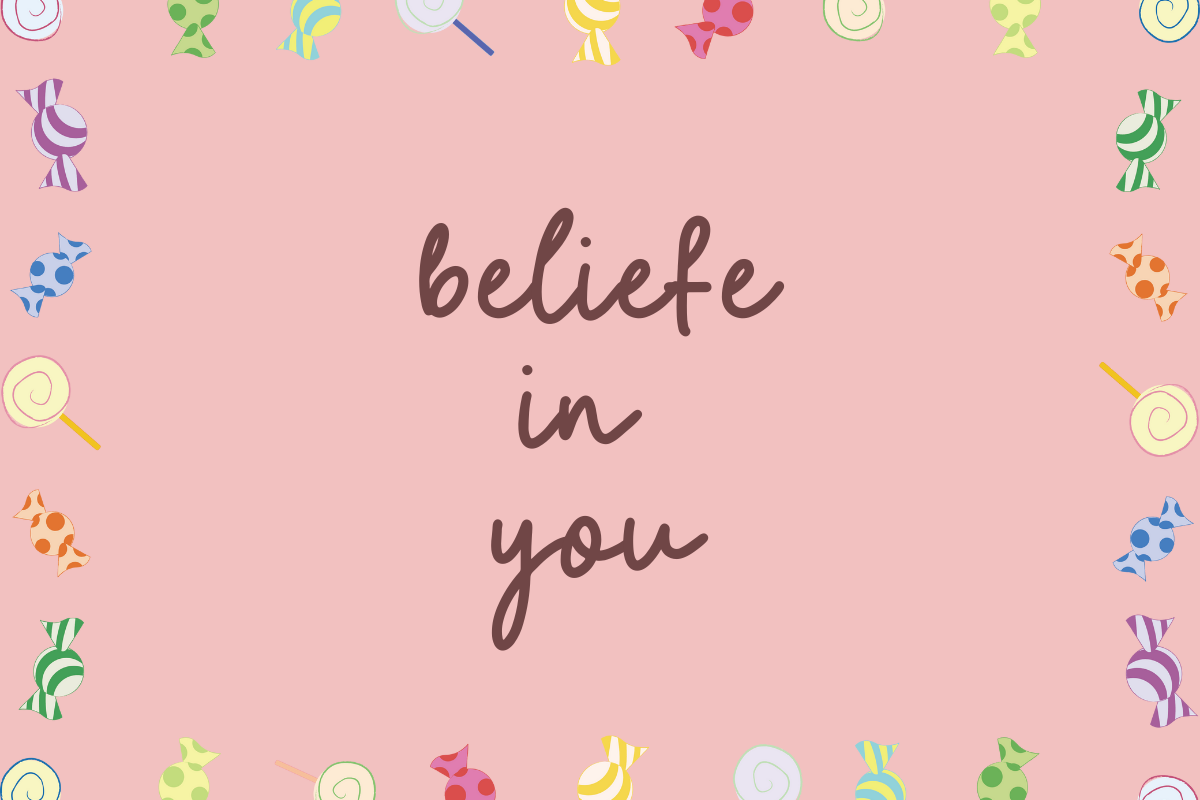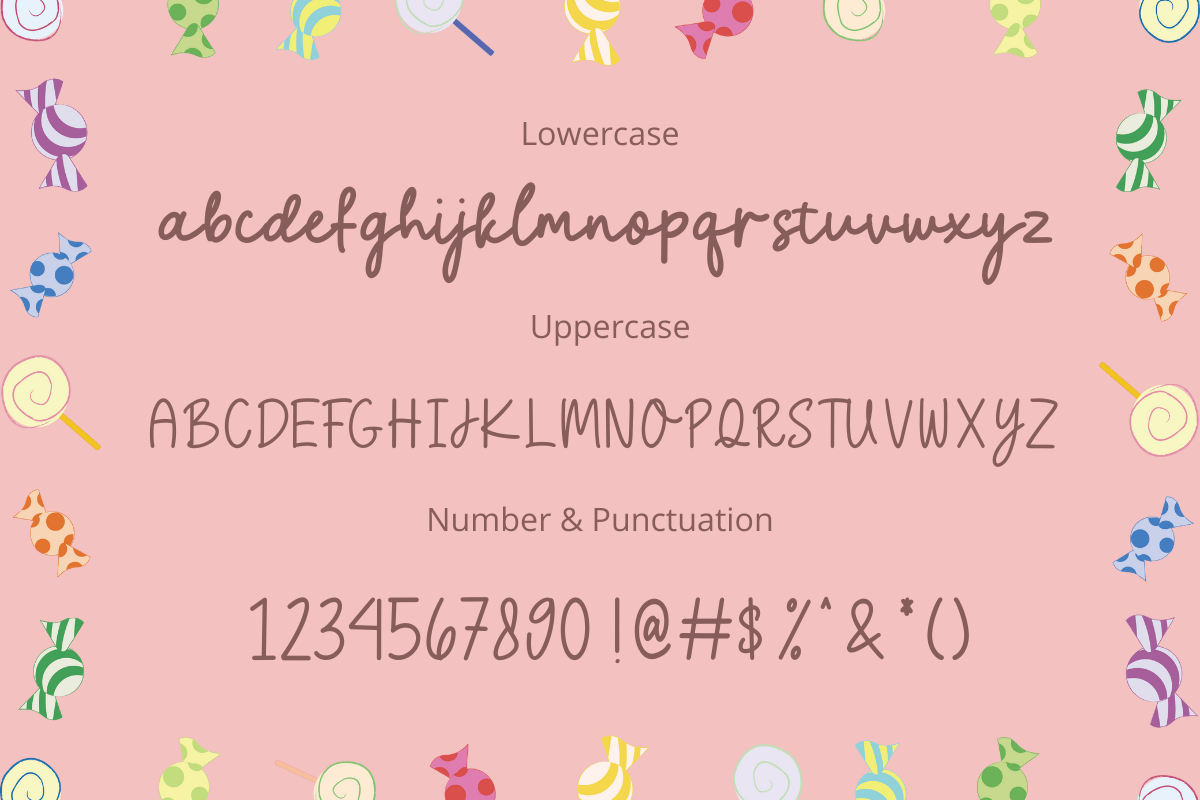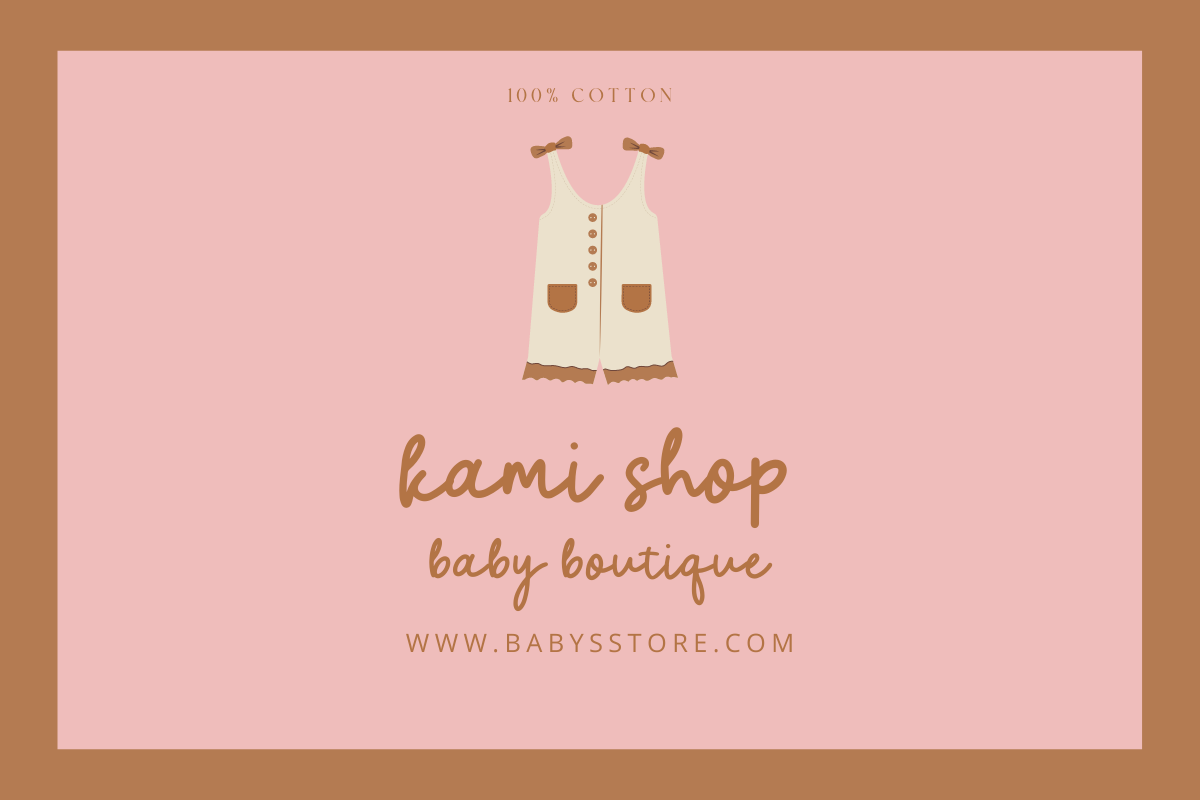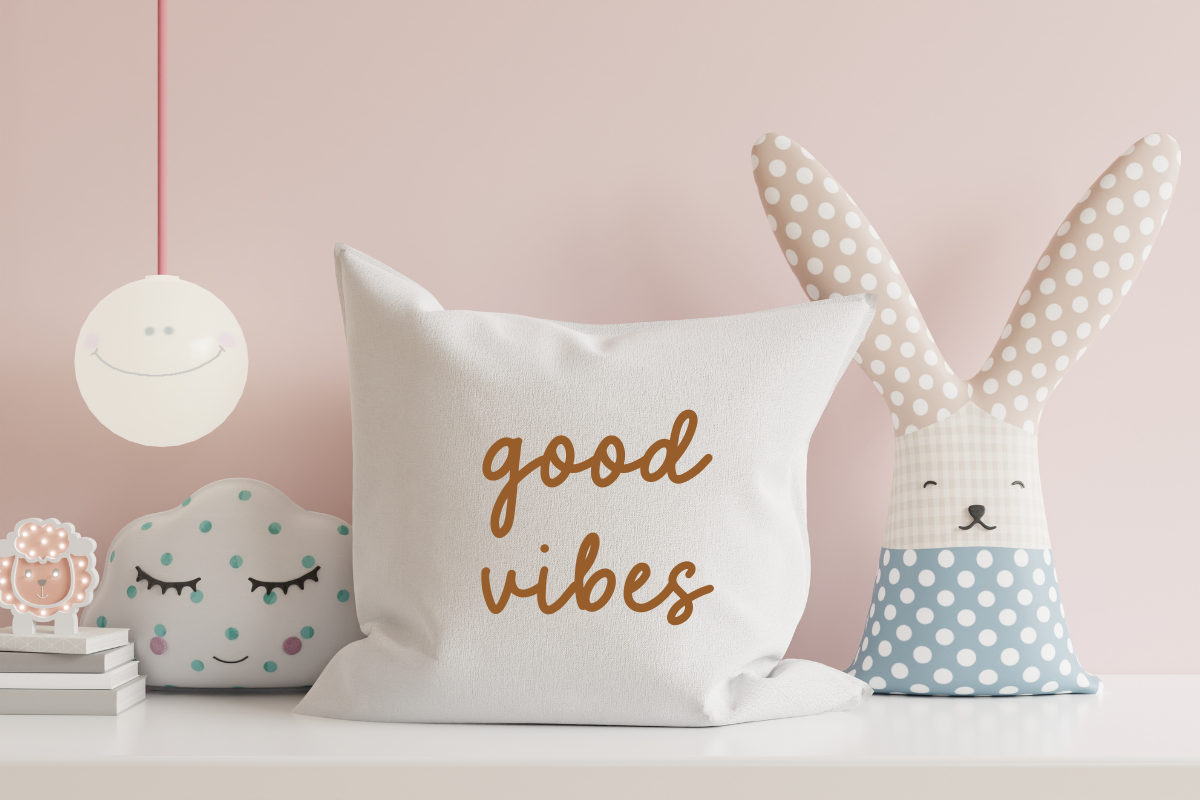
Sweet Candy
This is my new font, it's called Sweet Candy. This font is handwritten font. it's very suitable to be applied in your design, also it's perfect for logo, branding, title, social media post, advertisements, product packaging, product designs, label, photography, special event, web design, etc.
Sweet Candy (Uppercase & Lowercase)
Numeral & Punctuation